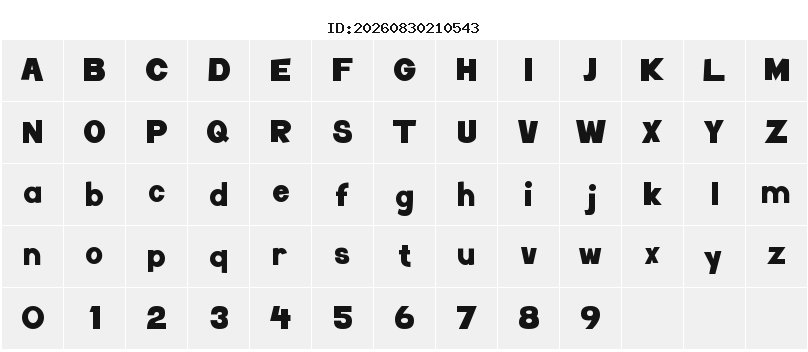
Teletoon Lowercase Preview
• Font Name: Teletoon Lowercase
• Full Font Name: Teletoon Lowercase
About Teletoon Lowercase.ttf
Teletoon Lowercase.ttf is a modern, elegant sans-serif font designed for ultimate readability and visual harmony. Perfect for branding, headlines, web design, and print materials.